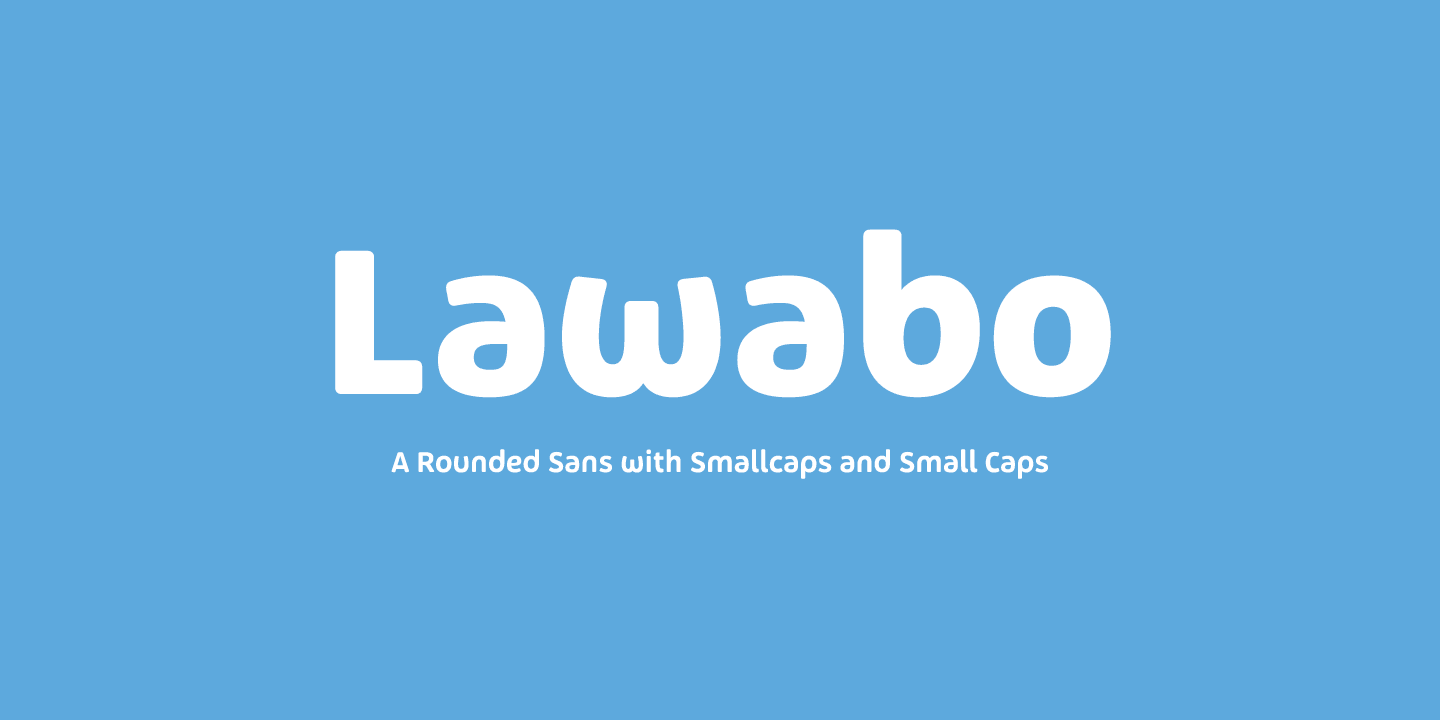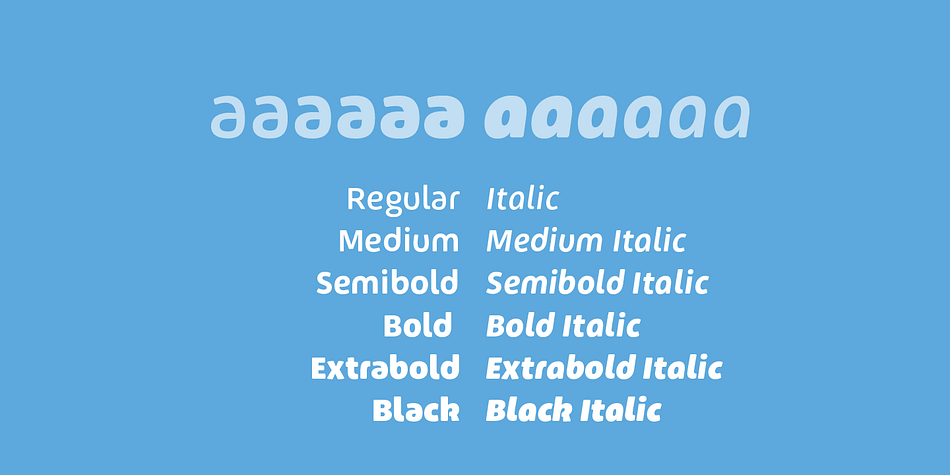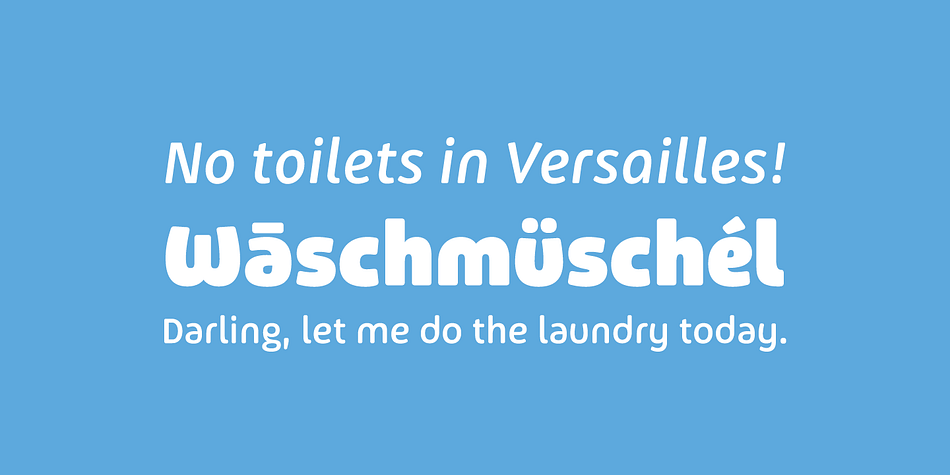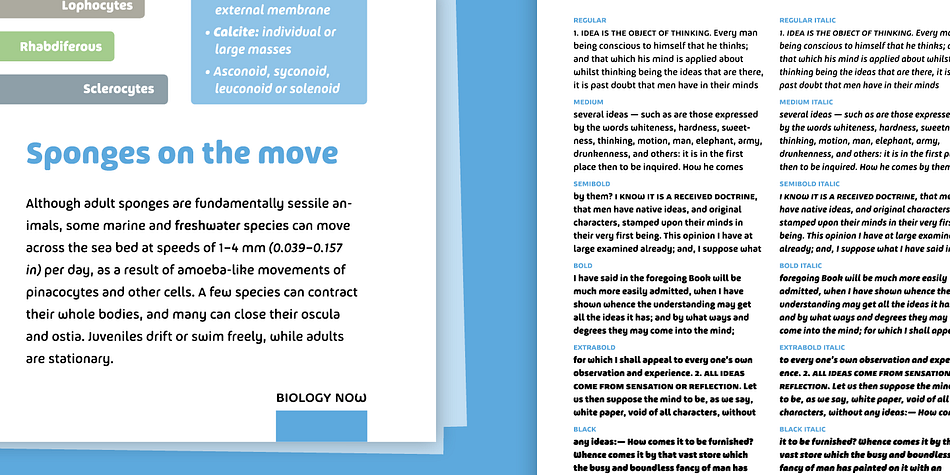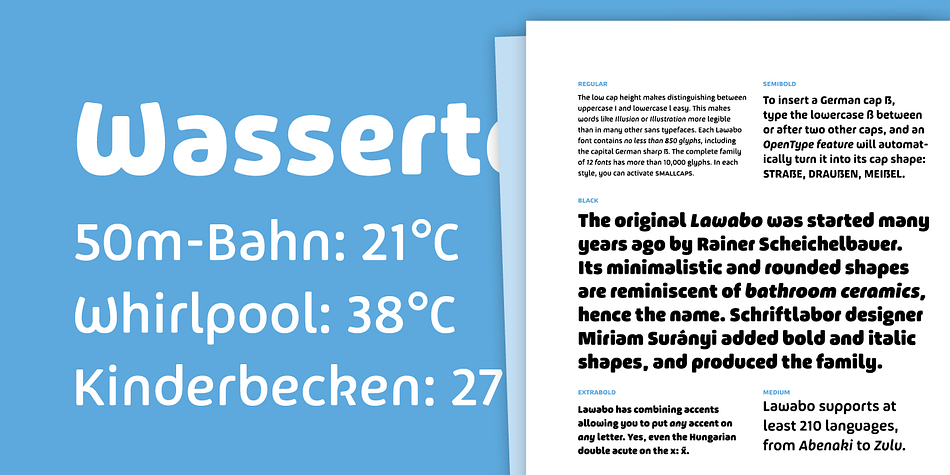
Lawabo is a sans serif font family. This typeface has twelve styles and was published by Schriftlabor.
The shapes of Lawabo are simplified to a minimum and rounded at the edges. Its resemblance to bath ceramics gave it its name. Lawabo sports a low cap height and has smallcaps.
The low cap height makes distinguishing between uppercase I and lowercase l easy. This makes words like ‘Illusion’ or ‘Illustration’ more legible than in many other sans typefaces.
Typeset in 6 weights, from Regular to Black, each of them accompanied by an italic, totaling in 12 styles. 9 figure styles and optional slashed zeros, arrows, combining accents add to the full Latin character set of 850 glyphs per font or more than 10,000 throughout the whole font family. It even includes the new German cap sharp S. Lawabo support more than 210 languages.